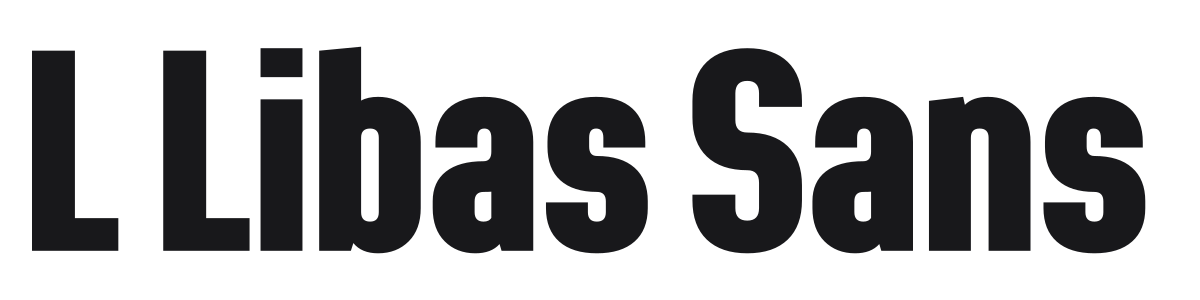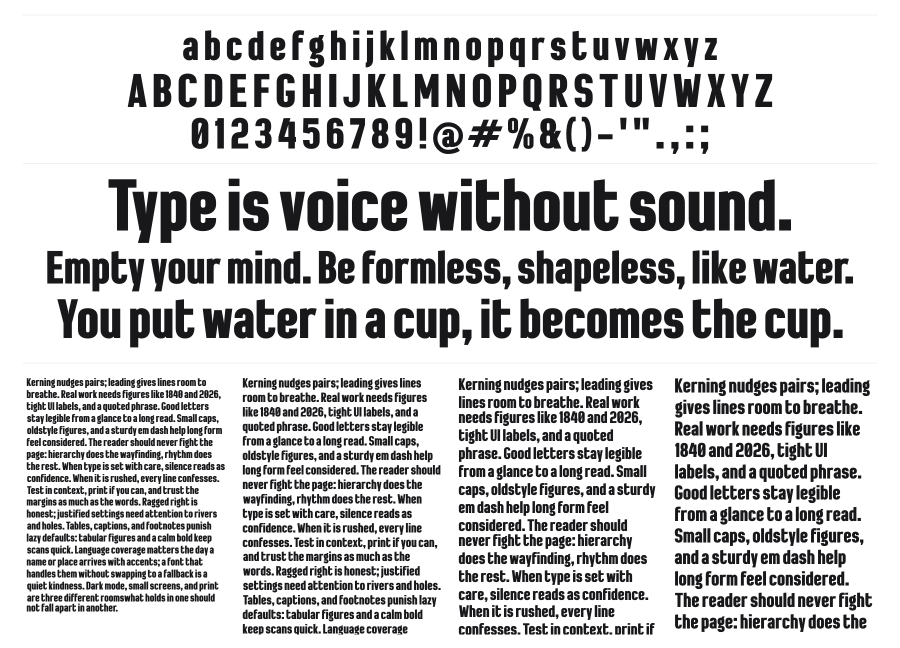
L Libas Sans
L Libas Sans is a heavy condensed grotesque built for maximum impact at large sizes. Its tall, narrow proportions and dense weight pack a serious punch in headlines, posters, and identity work. The ink traps at joins keep the forms crisp even in print.